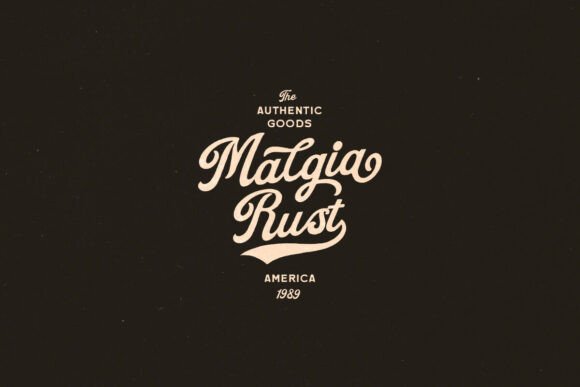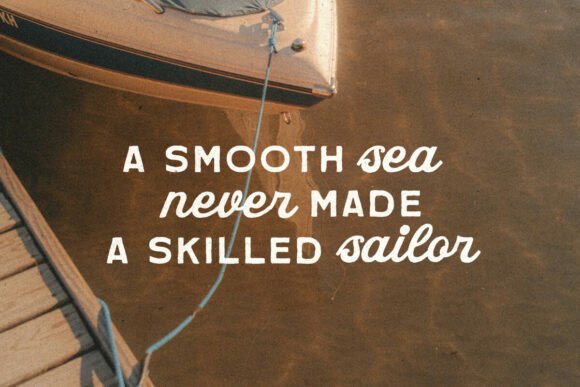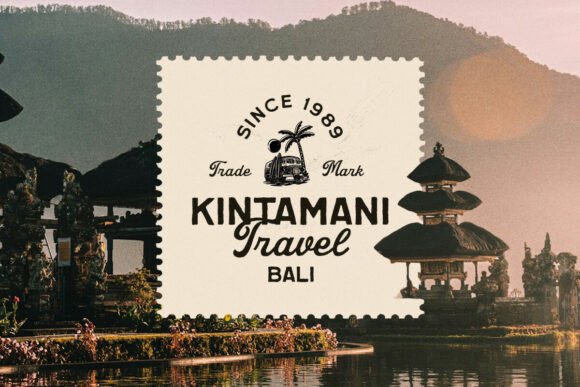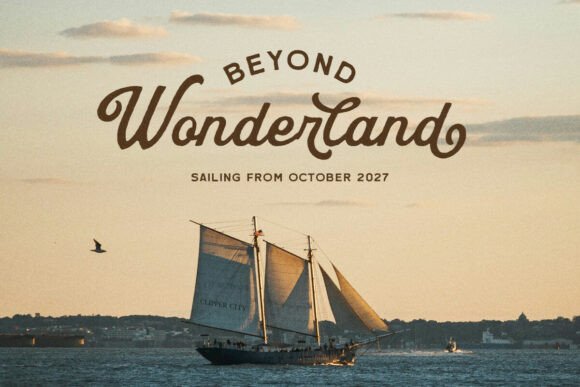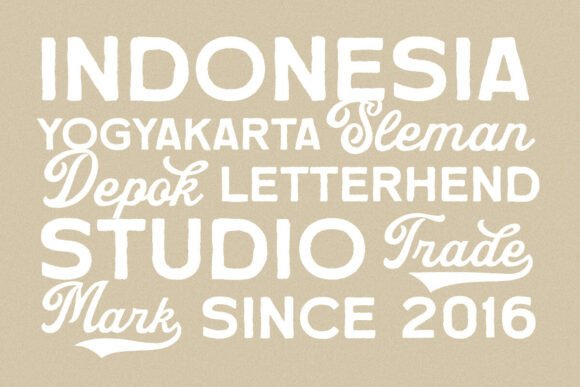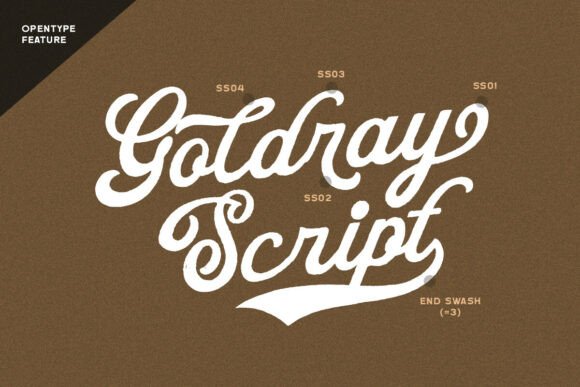
Introducing Goldray Club Font: The Perfect Blend of Laid-Back Script and Clean Sans
Are you tired of using fonts that are too formal or too bland? Look no further than the Goldray Club Font, a unique and refreshing typeface that combines the warmth of a hand-drawn script with the clarity of a clean sans. This font is perfect for designers and crafters who want to add a touch of personality and nostalgia to their projects.
The Perfect Duo: Laid-Back Script and Clean Sans
The Goldray Club Font is a masterful blend of two distinct styles: a laid-back script and a clean sans. The script component brings a sense of hand-drawn warmth and personality to the font, while the sans component keeps everything neat and easy to read. This perfect duo makes the Goldray Club Font incredibly versatile and suitable for a wide range of applications.
A Relaxed Retro Vibe with Classic Travel Charm
One of the standout features of the Goldray Club Font is its relaxed retro vibe. This font is reminiscent of a bygone era, evoking memories of classic travel posters, vintage logos, and nostalgic branding. The font’s classic travel charm makes it perfect for projects that require a sense of adventure, freedom, and joy.
Perfect for Logos, Packaging, Posters, and Branding
The Goldray Club Font is an excellent choice for a variety of design projects, including logos, packaging, posters, and branding. Its unique blend of script and sans makes it perfect for creating eye-catching and memorable designs that stand out from the crowd. Whether you’re designing a logo for a new business, creating packaging for a product, or developing a brand identity, the Goldray Club Font is an excellent choice.
Why Choose Goldray Club Font?
So, why choose the Goldray Club Font over other fonts? Here are just a few reasons:
- Unique blend of script and sans: The Goldray Club Font offers a refreshing change from traditional fonts, combining the best of both worlds.
- Laid-back and relaxed vibe: This font is perfect for projects that require a sense of calm and serenity.
- Classic travel charm: The Goldray Club Font is reminiscent of a bygone era, making it perfect for projects that require a sense of nostalgia and adventure.
- Highly versatile: This font is suitable for a wide range of applications, from logos and packaging to posters and branding.
Tips for Using Goldray Club Font
Here are a few tips for using the Goldray Club Font effectively:
- Use it for headlines and titles: The Goldray Club Font is perfect for creating eye-catching headlines and titles that grab attention.
- Pair it with other fonts: Experiment with pairing the Goldray Club Font with other fonts to create a unique and interesting contrast.
- Use it for branding and packaging: The Goldray Club Font is perfect for creating a cohesive brand identity that stands out from the crowd.
In conclusion, the Goldray Club Font is a unique and refreshing typeface that combines the warmth of a hand-drawn script with the clarity of a clean sans. Its relaxed retro vibe and classic travel charm make it perfect for a wide range of design projects, from logos and packaging to posters and branding. Whether you’re a designer or crafter, the Goldray Club Font is an excellent choice for adding a touch of personality and nostalgia to your projects.